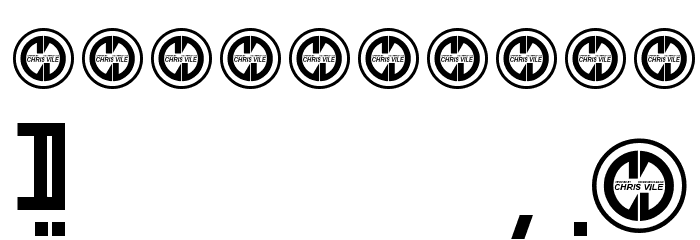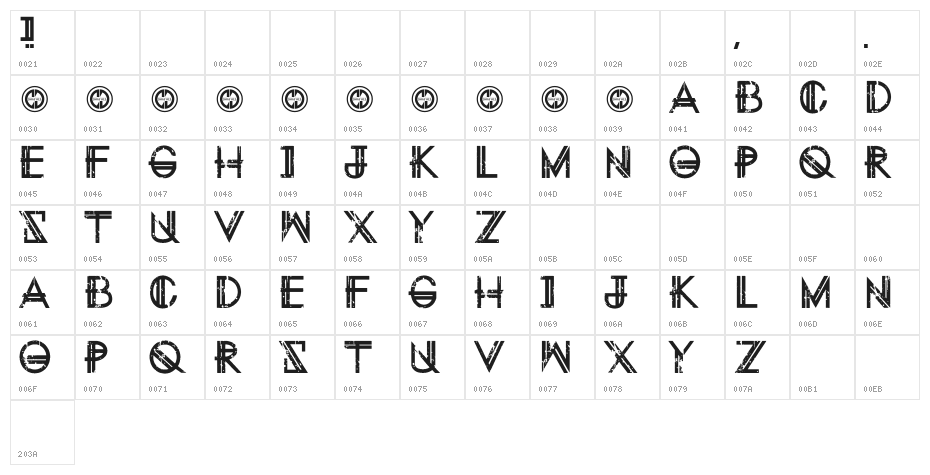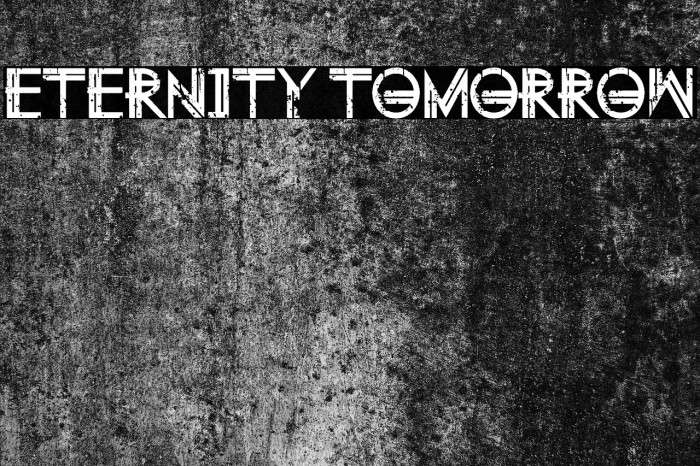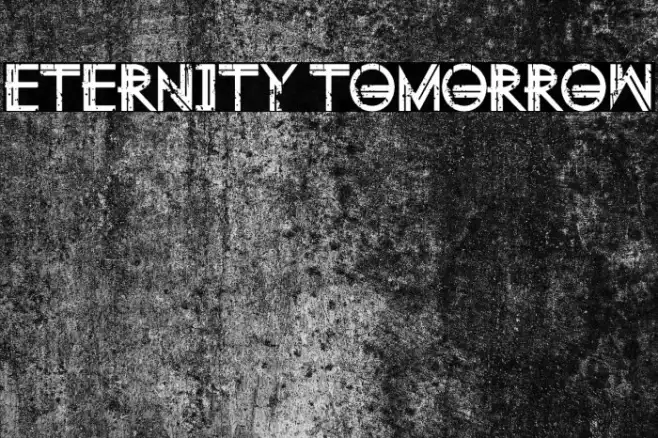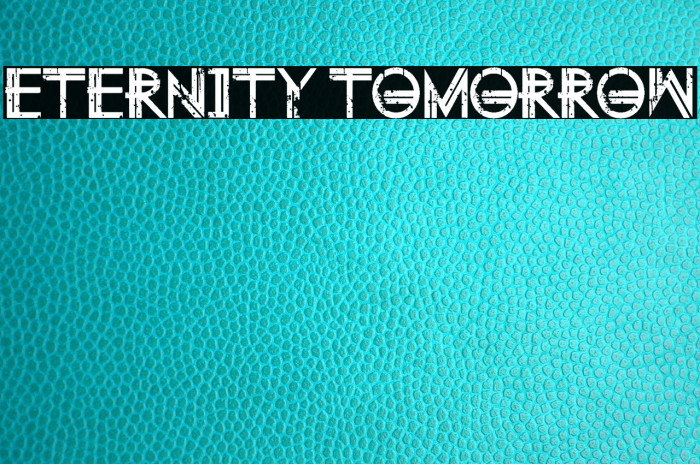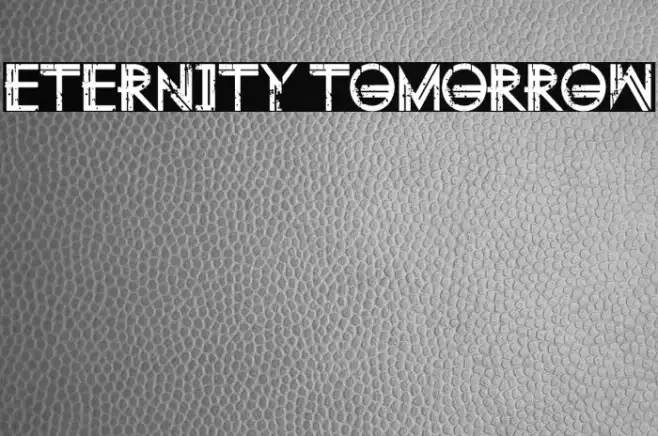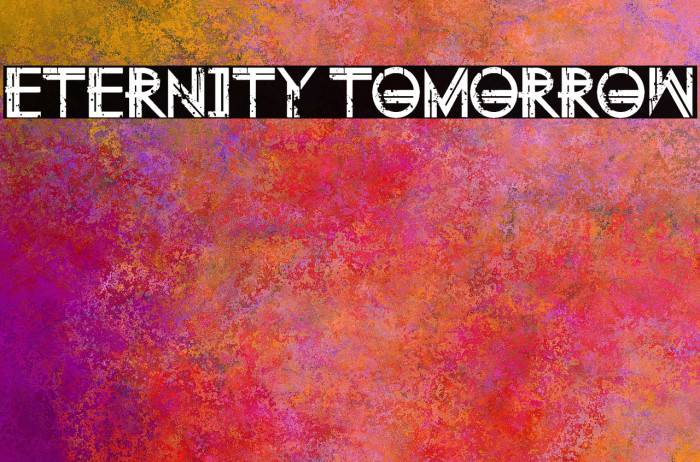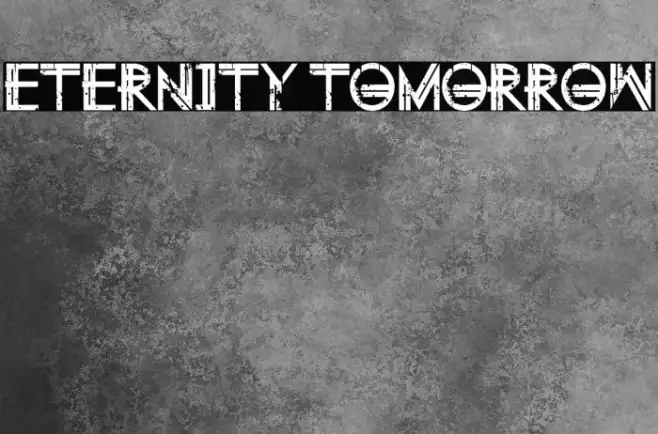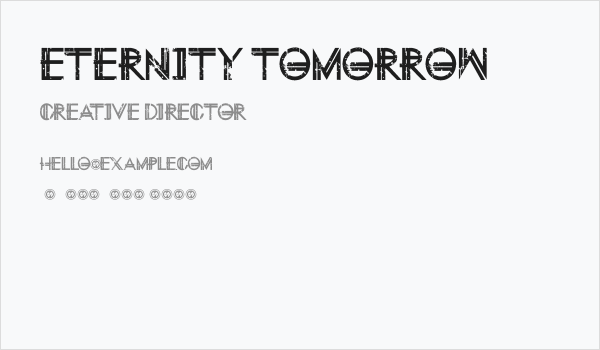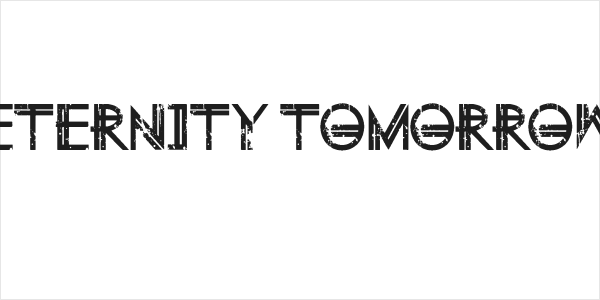
Eternity Tomorrow Font
Eternity Tomorrow Description
This font features a distressed, grunge style with a bold and impactful appearance. The uppercase letters are characterized by sharp angles and geometric shapes, giving them a futuristic and edgy look. The texture within each character adds a worn, vintage feel, making it suitable for designs that require a rugged or industrial aesthetic. The font maintains a consistent width across all characters, ensuring uniformity and balance. Its unique style makes it stand out, ideal for creative projects that aim to capture attention.
| Overall Style | Futuristic, Grunge |
| Proposed Projects | Ideal for album covers, posters, branding for edgy products, or any design needing a bold, industrial look. |